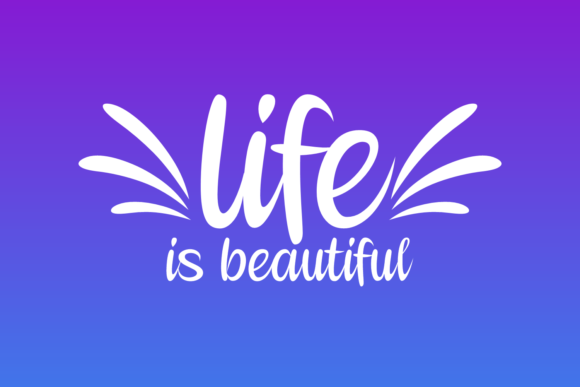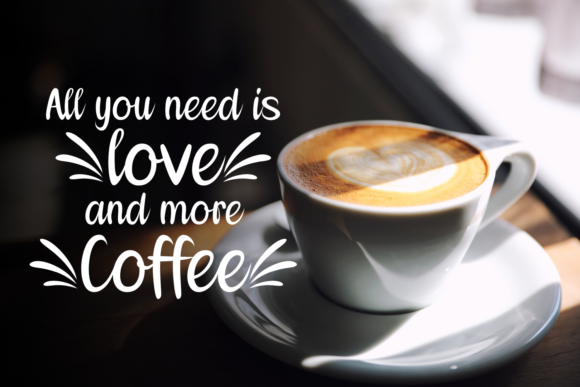
Introduction to Let Them Play Font
As a designer, have you ever found yourself rummaging through your font collection, searching for the perfect script font to elevate your creative project? The search can be daunting, but when you stumble upon a gem like the Let Them Play Font, it’s like finding a needle in a haystack. This charming script font has been making waves in the design community, and for good reason.
With its high-quality design and down-to-earth style, the Let Them Play Font is an excellent addition to any design resource. Whether you’re working on a project with a transparent background or need a font that’s free to download, this versatile font is sure to impress. Its readability and charm make it an ideal choice for designers looking to add a touch of elegance to their work.
In this article, we’ll dive into the world of the Let Them Play Font, exploring its features and benefits, and why it’s a valuable resource for designers looking to take their creative projects to the next level.
Key Features of Let Them Play Font
- High-quality design suitable for creative projects
- Unique, playful characters with a transparent background for easy customization
- Designed with a large character set, including uppercase and lowercase letters, numbers, and punctuation
- Resolution-independent, ensuring crisp and clear display on various devices
- Perfect for digital projects, such as logos, graphics, and UI elements, due to its modern and eye-catching design
Honest Review: Let Them Play Font
As a designer, I’m always on the lookout for high-quality design resources that can elevate my creative projects. Recently, I stumbled upon the Let Them Play Font, and I was excited to give it a try.
First impressions: the font is sleek, modern, and perfect for a variety of design projects. The transparent background is a nice touch, making it easy to integrate into any design. Plus, it’s completely free to download, which is always a bonus!
- Modern and sleek design
- Some characters may not be available in the full set
- May not be suitable for extremely formal or traditional designs
- Font may not be as versatile as some other popular fonts
Overall, I’m impressed with the Let Them Play Font. It’s a great addition to any designer’s toolkit, and I can see it being a hit for modern and creative projects. While it may not be perfect, its strengths far outweigh its limitations.
Let Them Play Font
To get the most out of the Let Them Play Font, use it in conjunction with a transparent background to create a unique and eye-catching design. You can also experiment with different font sizes and styles to create a visually appealing effect.
The Let Them Play Font is perfect for any creative project, including logos, social media graphics, and presentations. It’s also great for use in educational materials, such as worksheets and lesson plans. With its transparent background and high-quality design, the Let Them Play Font is a versatile and useful design resource.
Alternatives to Let Them Play Font
The Great Vibes Font is a high-quality, handwritten font suitable for creative projects, such as advertisements, social media graphics, and posters. It features a unique, playful style and is available for free download. This font is ideal for designers who want to add a touch of whimsy to their designs. Compared to Let Them Play Font, Great Vibes Font has a more refined and elegant look, making it suitable for a wider range of design applications.
The Pacifico Font is a beautiful, modern script font that works well for a variety of creative projects, including branding, packaging, and editorial designs. It features a transparent background and is available for free download. This font is perfect for designers who want to add a touch of sophistication to their designs. Compared to Let Them Play Font, Pacifico Font has a more elegant and refined look, making it suitable for high-end design projects.
Is the Let Them Play Font suitable for large-scale designs?
Yes, the Let Them Play Font is designed to be scalable and suitable for large-scale designs. It’s a high-quality font with a clear and legible design, making it perfect for use in large fonts, headings, and titles. However, please note that the font’s legibility may decrease at extremely large sizes, so it’s always a good idea to test the font at different sizes before finalizing your design.